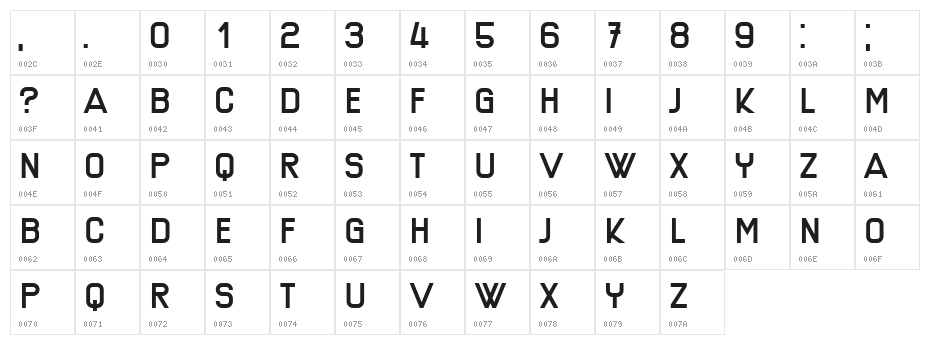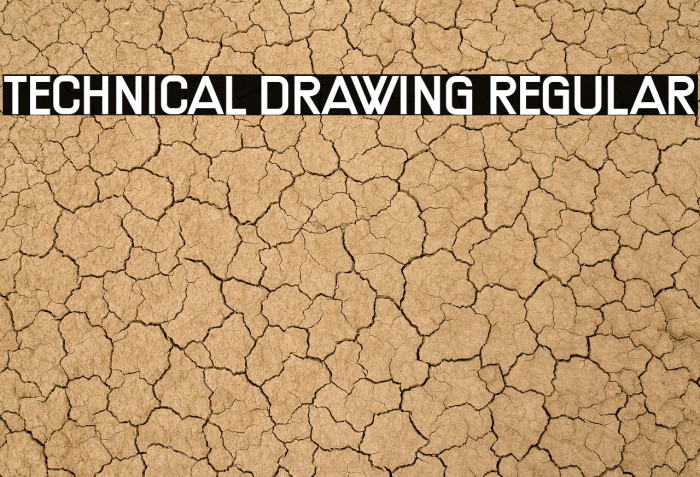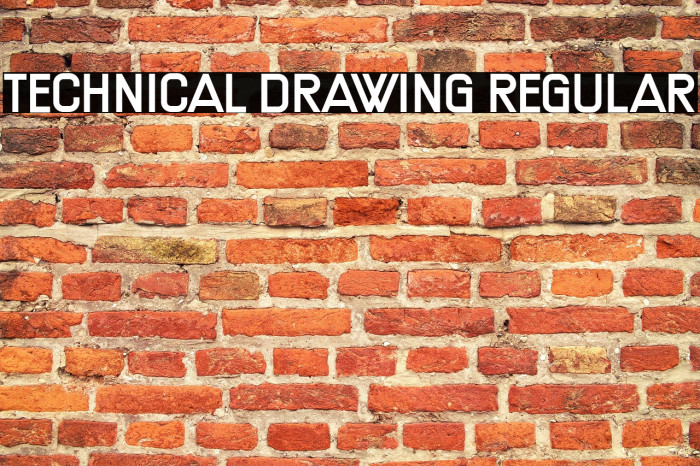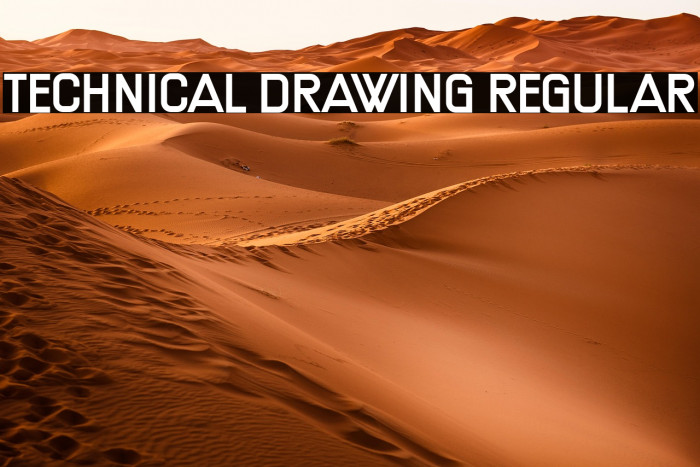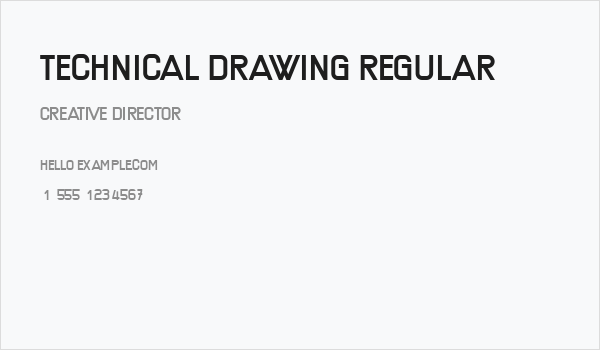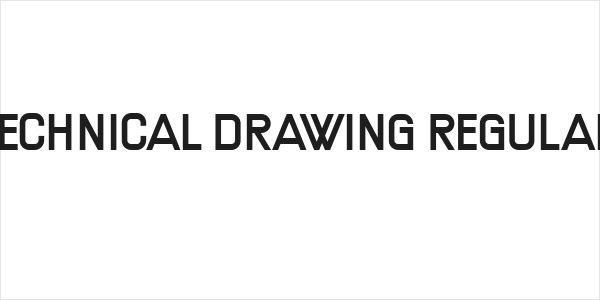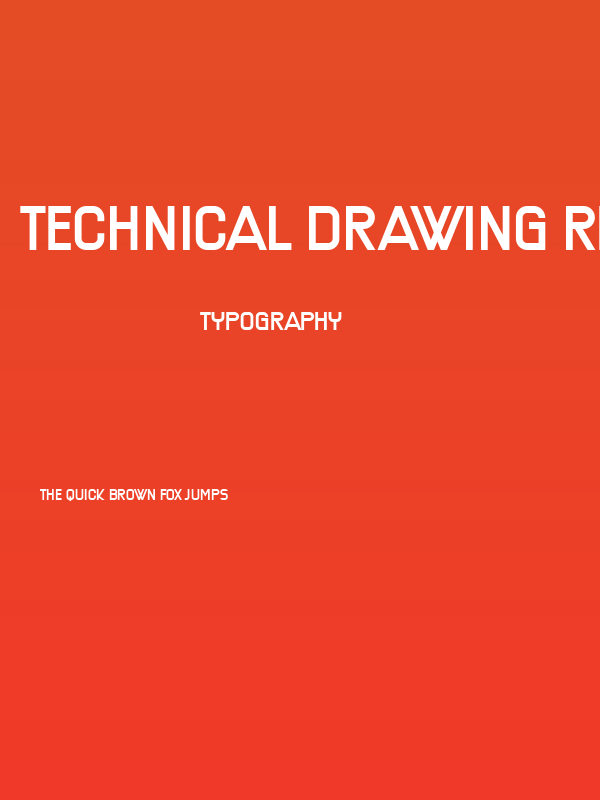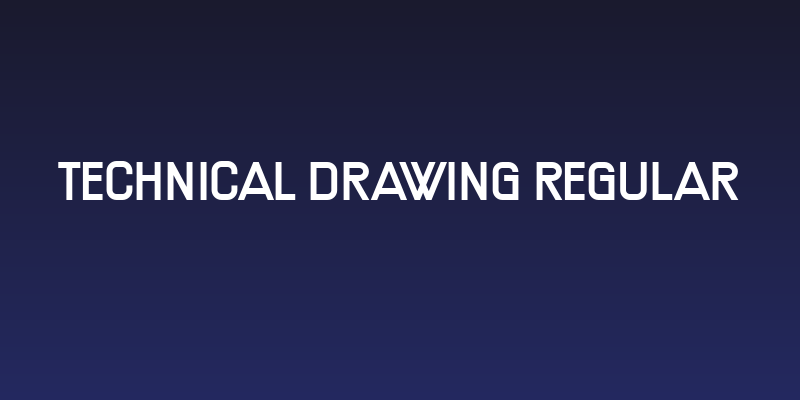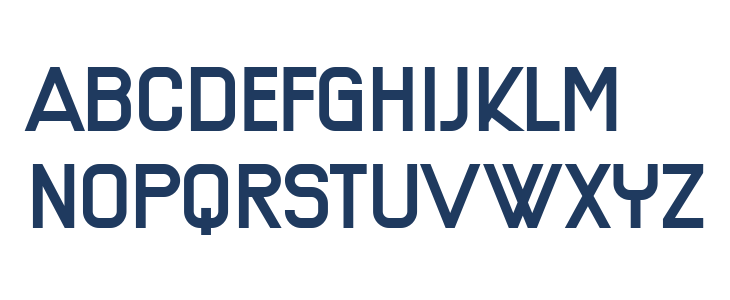
Technical Drawing Regular Font
Technical Drawing Regular Description
This font features a clean, geometric design with a technical and precise aesthetic. The characters are constructed with straight lines and sharp angles, giving it a modern and industrial feel. The uppercase and lowercase letters maintain a consistent height, contributing to its uniform appearance. The numerals are equally structured, ensuring readability and clarity. This font is ideal for projects that require a technical or architectural look, such as blueprints, schematics, or technical manuals. Its straightforward design makes it suitable for both digital and print media.
| Use Case | Technical documents, architectural designs, digital interfaces. |
| Proposed Projects | Ideal for technical manuals, architectural designs, blueprints, and schematics. |